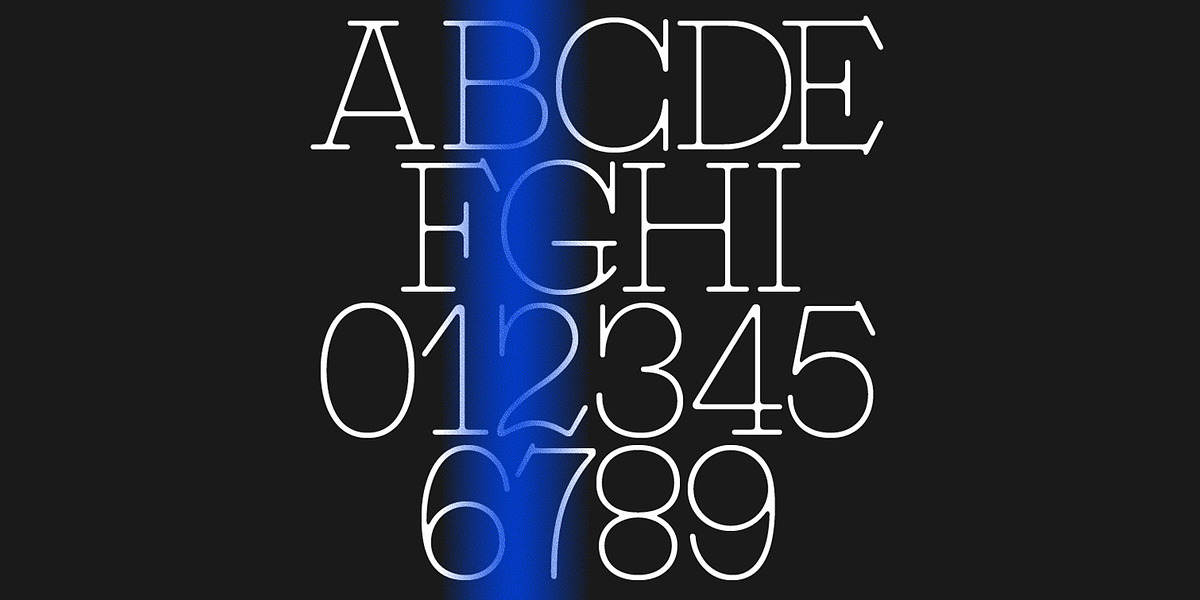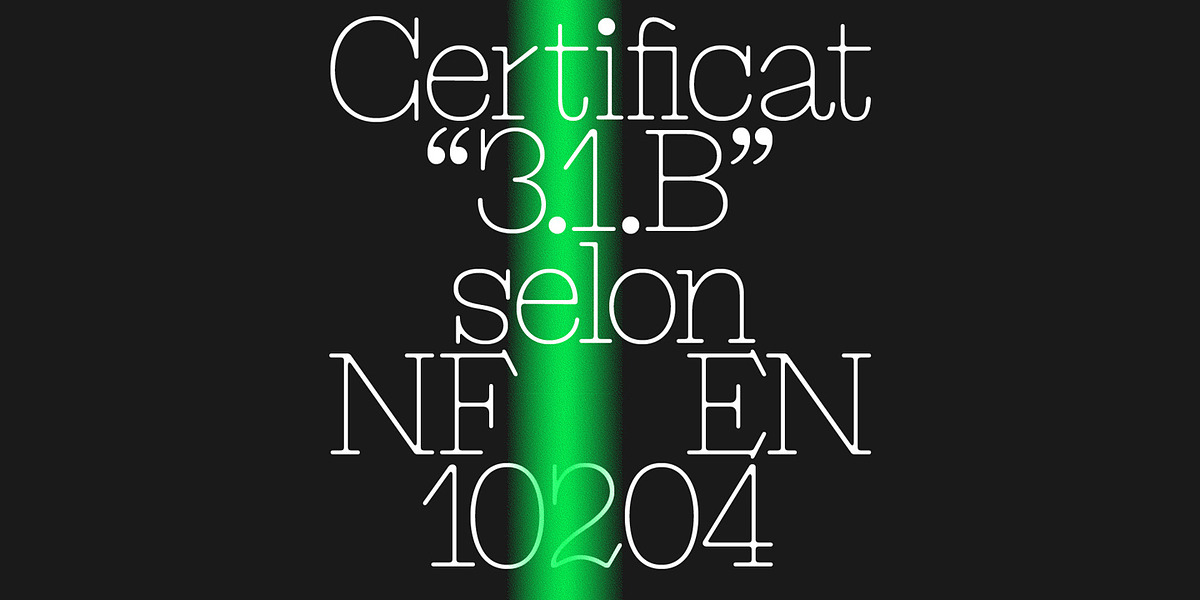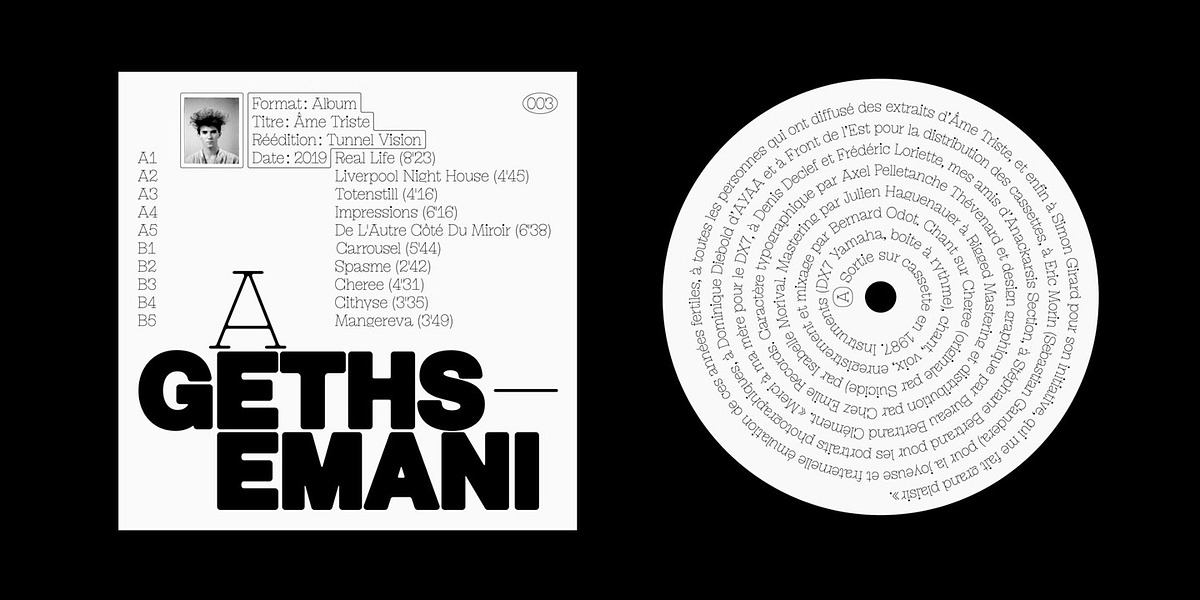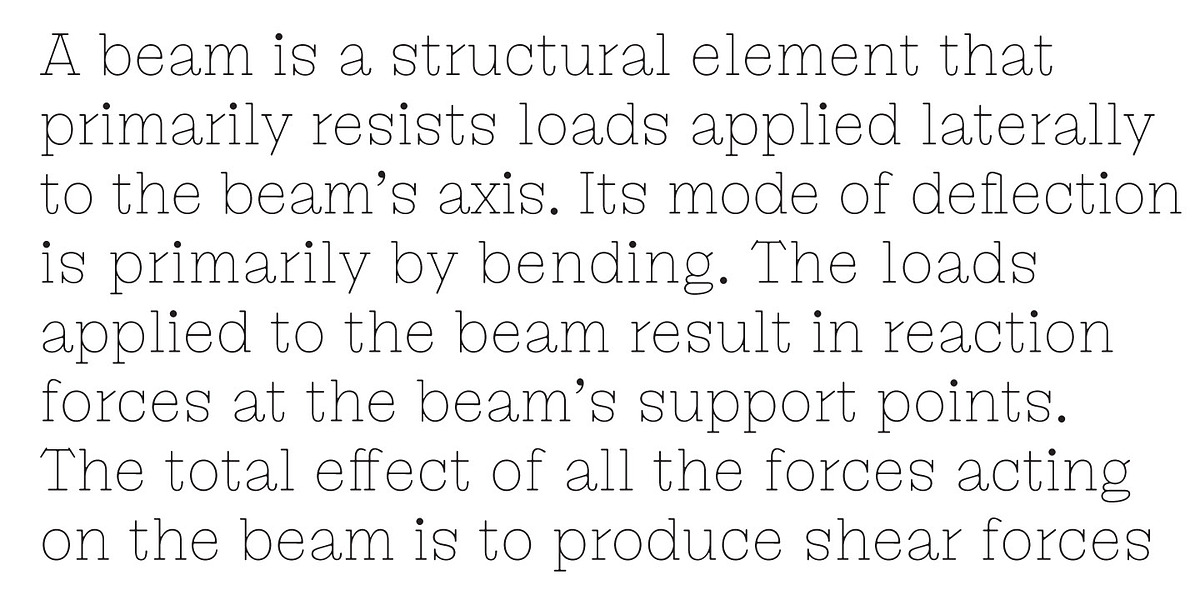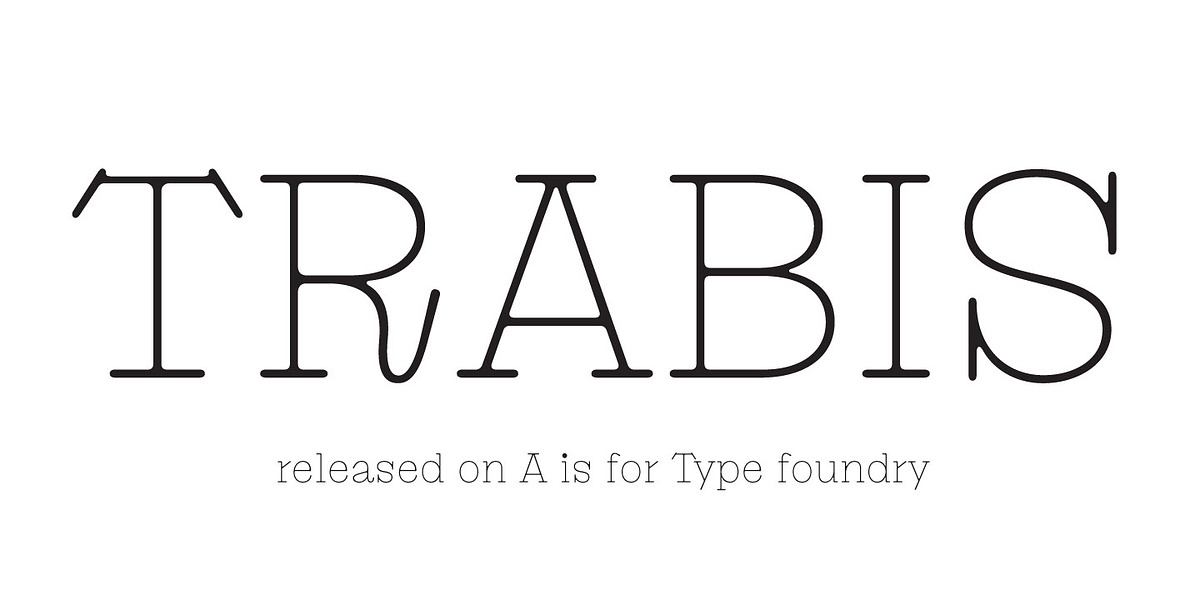
Trabis
Trabis is a serif typeface designed by Axel Pelletanche-Thévenart. It features blurred serifs which give it a distinct typewriter feel, while its overall structure is rooted in contemporary design principles. While suitable for continuous reading, Trabis truly shines as a display font, showcasing unique characteristics like a steep lowercase 'r' and prominent capital letters.